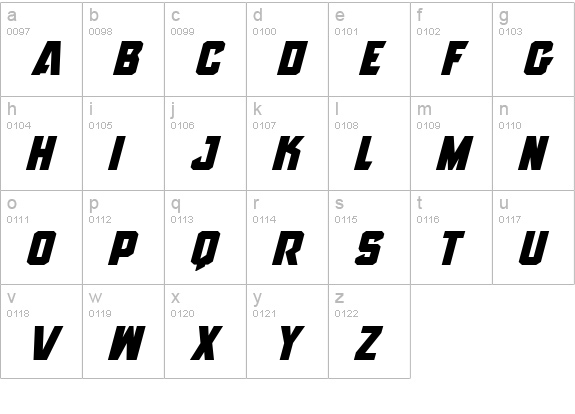
Anitlles Expanded Italic is a distinctive, extended-width, italic variant in the Anitlles typeface family \xE2\x80\x94 well suited to design and typography projects.
Antilles Expanded Italic font is a sleek and modern typeface that exudes elegance and sophistication. Its italicized design adds a touch of flair and style to any project, making it perfect for both creative and professional applications. The elongated and expanded letterforms give this font a unique and eye-catching look that is sure to make a statement. What makes Anitlles Expanded Italic font even more appealing is that it is available for free download at FontsMarket.com. This means that you can easily access this beautiful font and use it in your designs without any cost. Whether you are working on a branding project, a website design, or any other creative endeavor, Anitlles Expanded Italic font is a versatile choice that will elevate your work to the next level. Download it today and unleash your creativity with this stunning typeface.